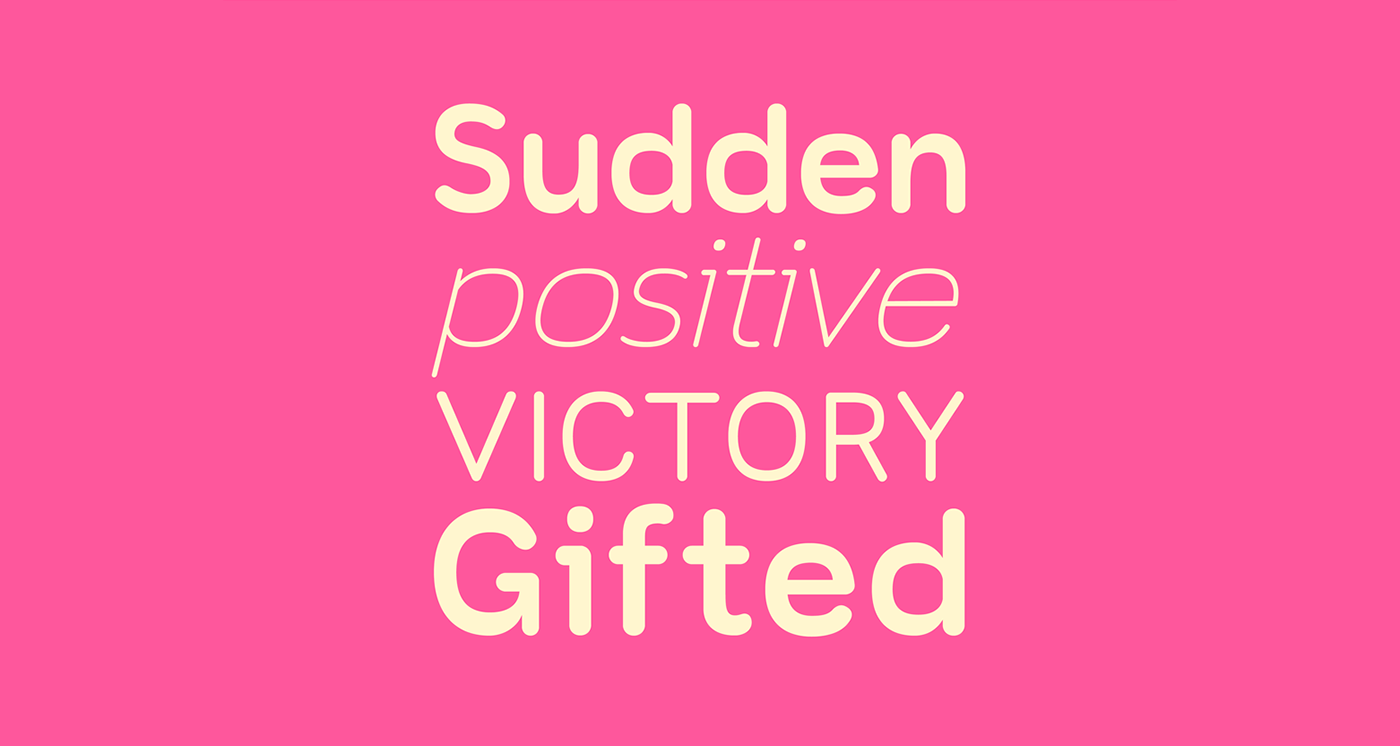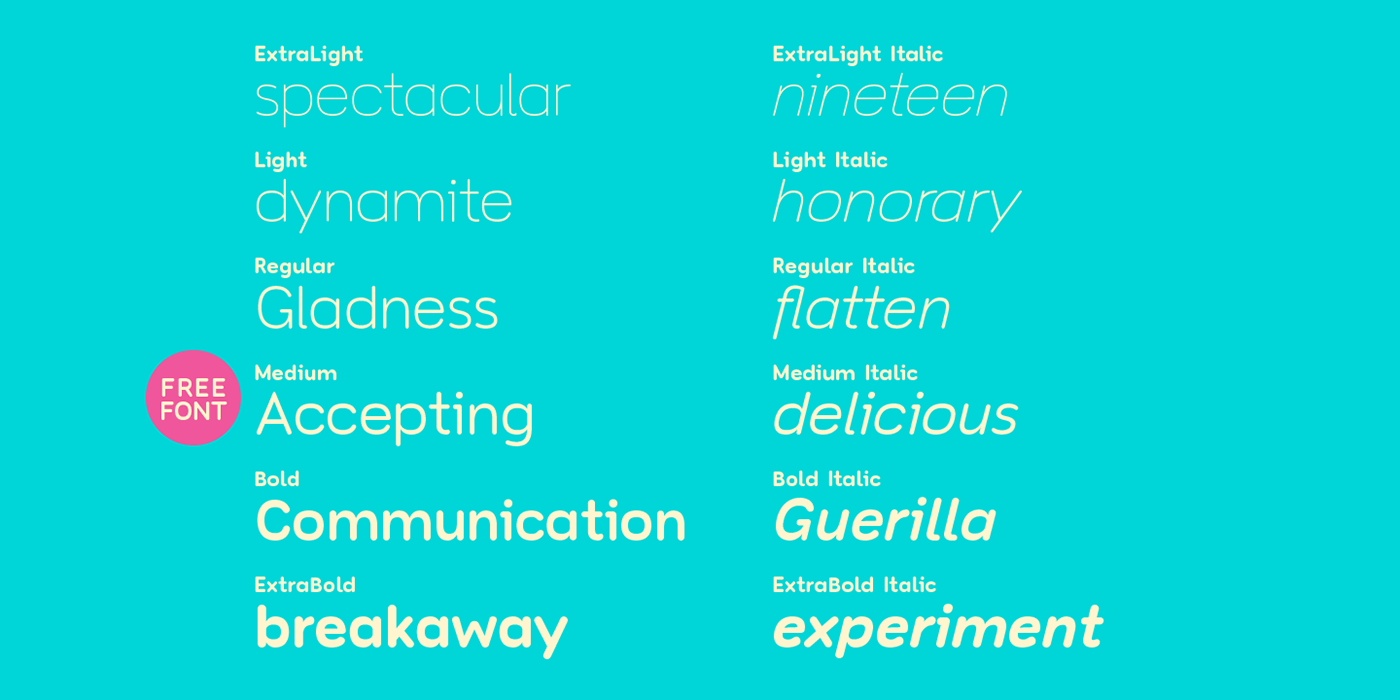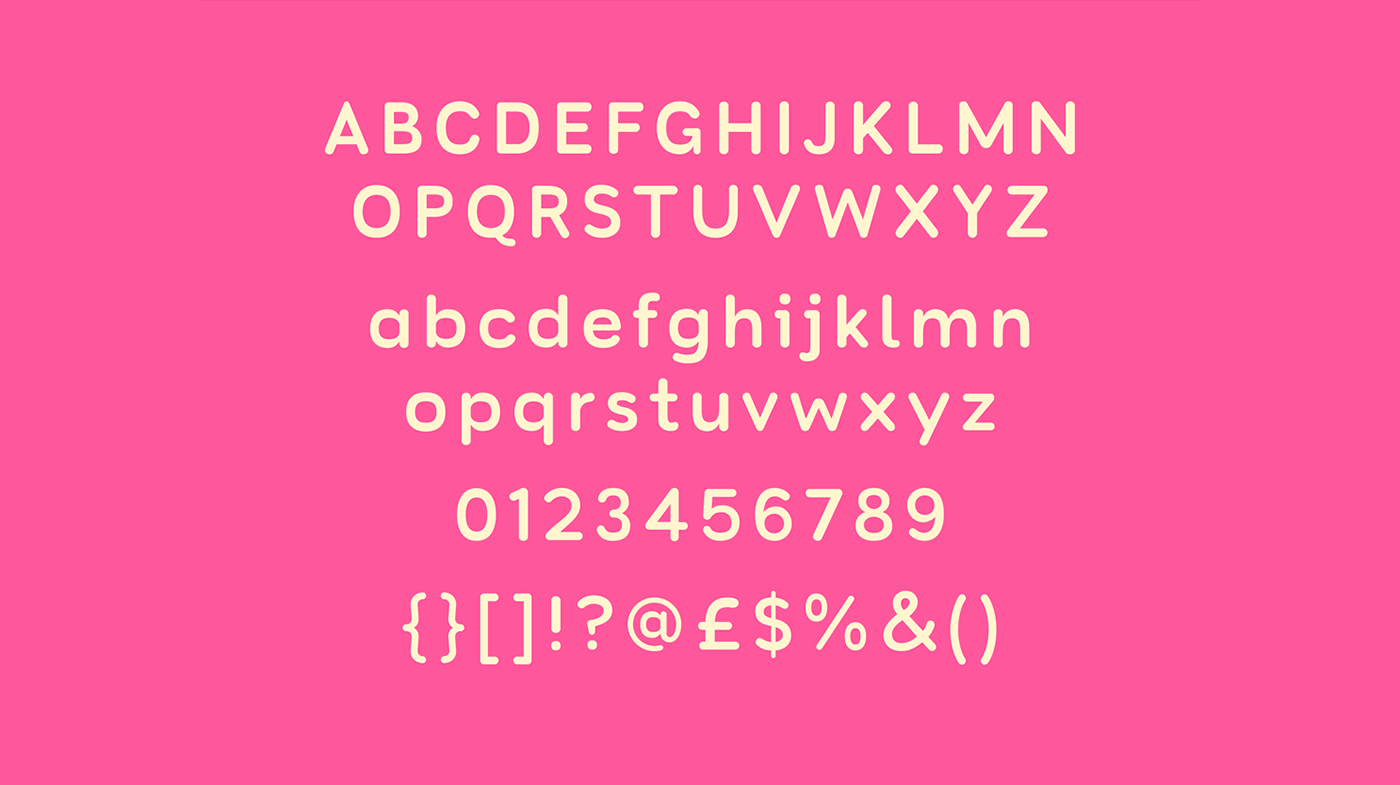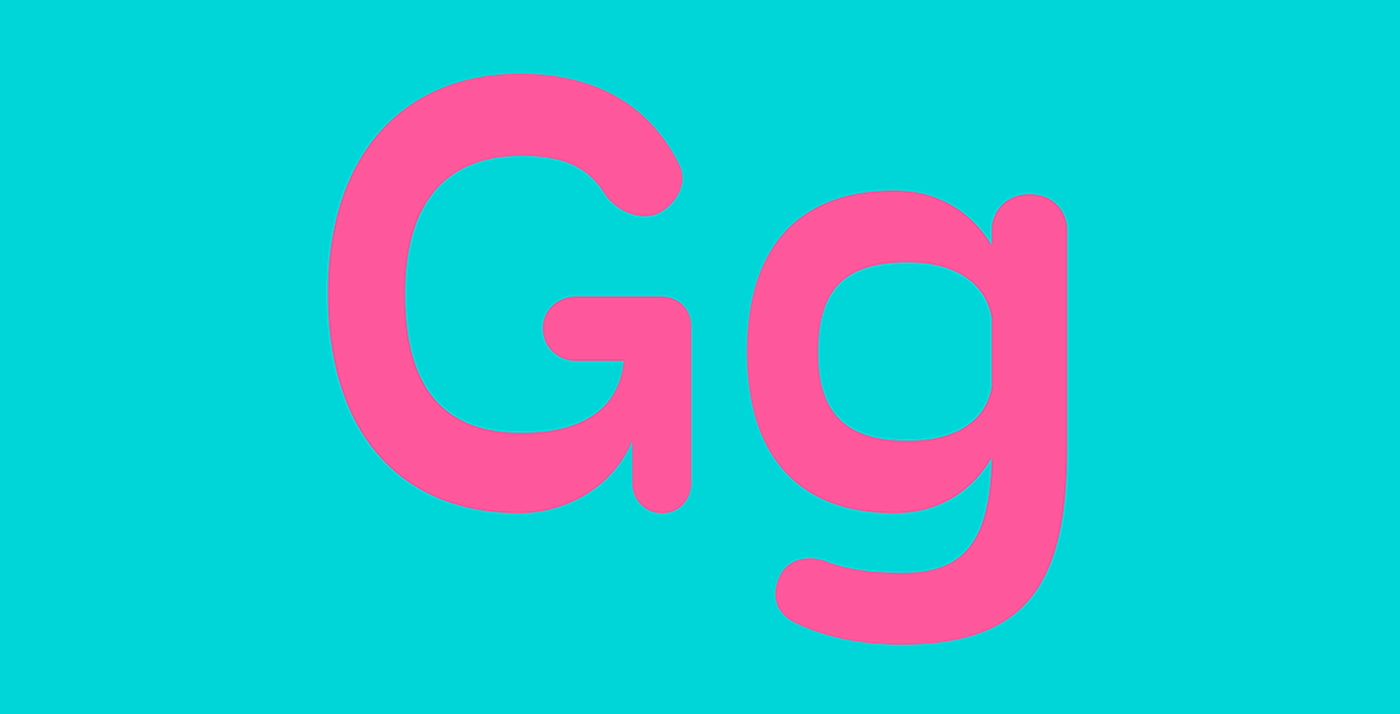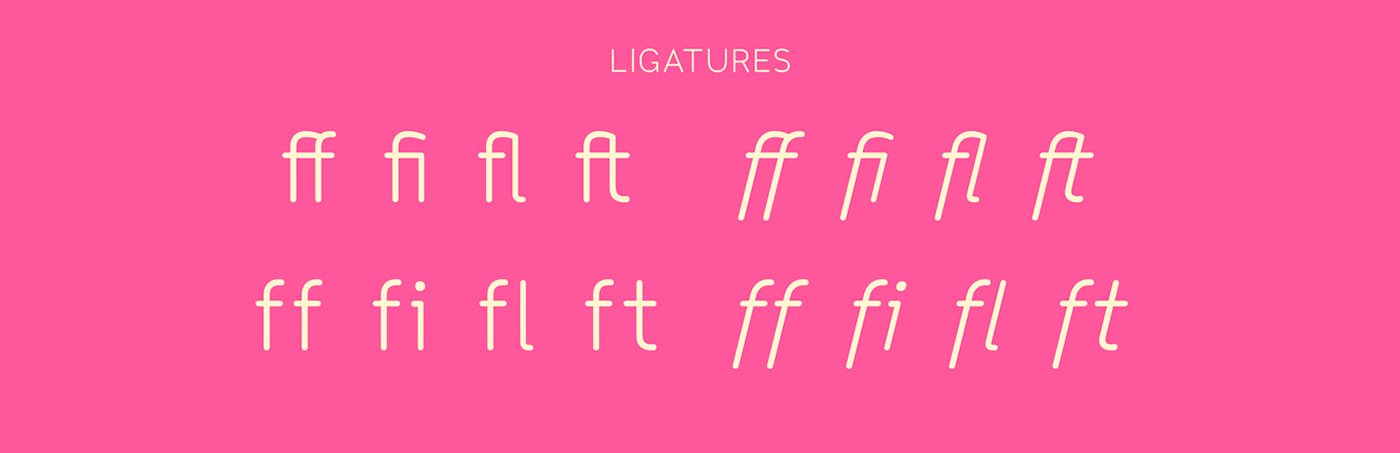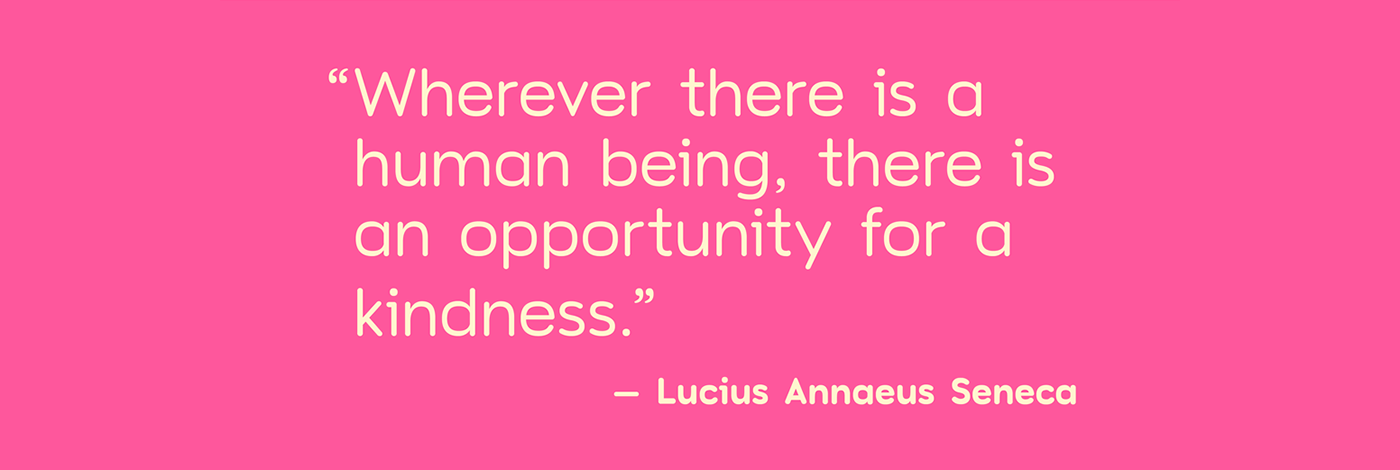
Toriga Typeface was named after the Portuguese grape variant known as Touriga Nacional. This fun typeface boasts the features of a well-balanced, versatile, modern sans which is highly legible as a text font and with a clean, elegant look as a display font at larger sizes. The rounded terminals give it a friendly, approachable look. It was created to be enjoyed, so enjoy creating with it and download the free version – Toriga Medium – below: